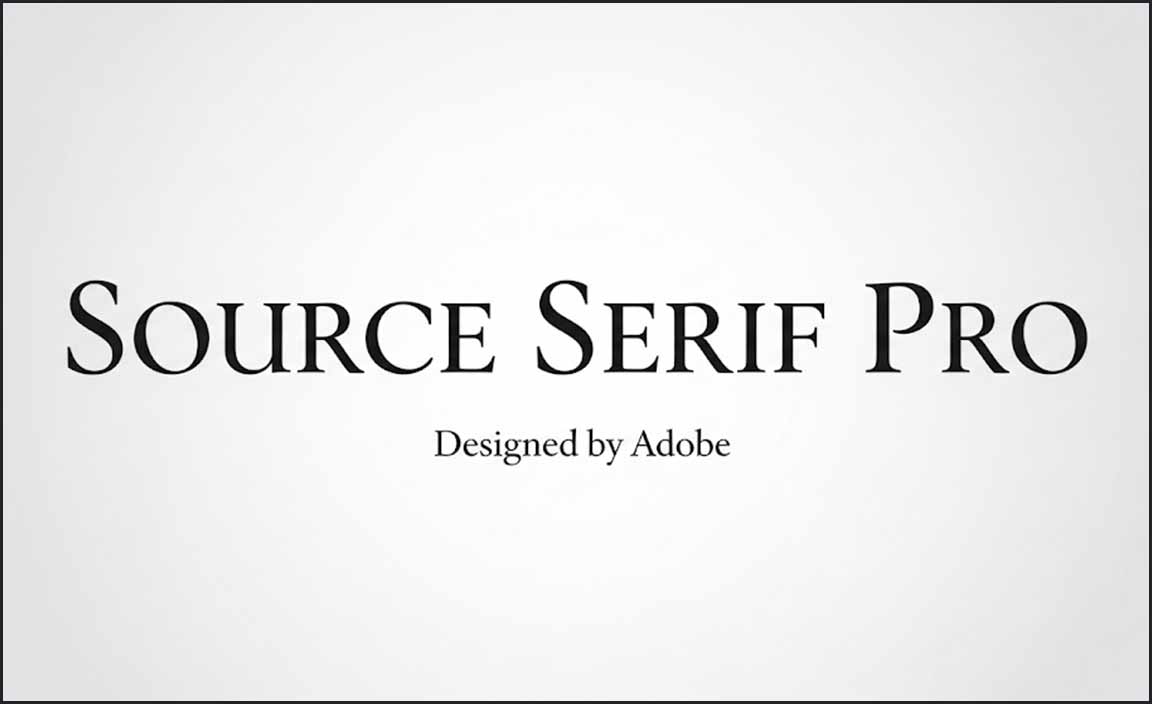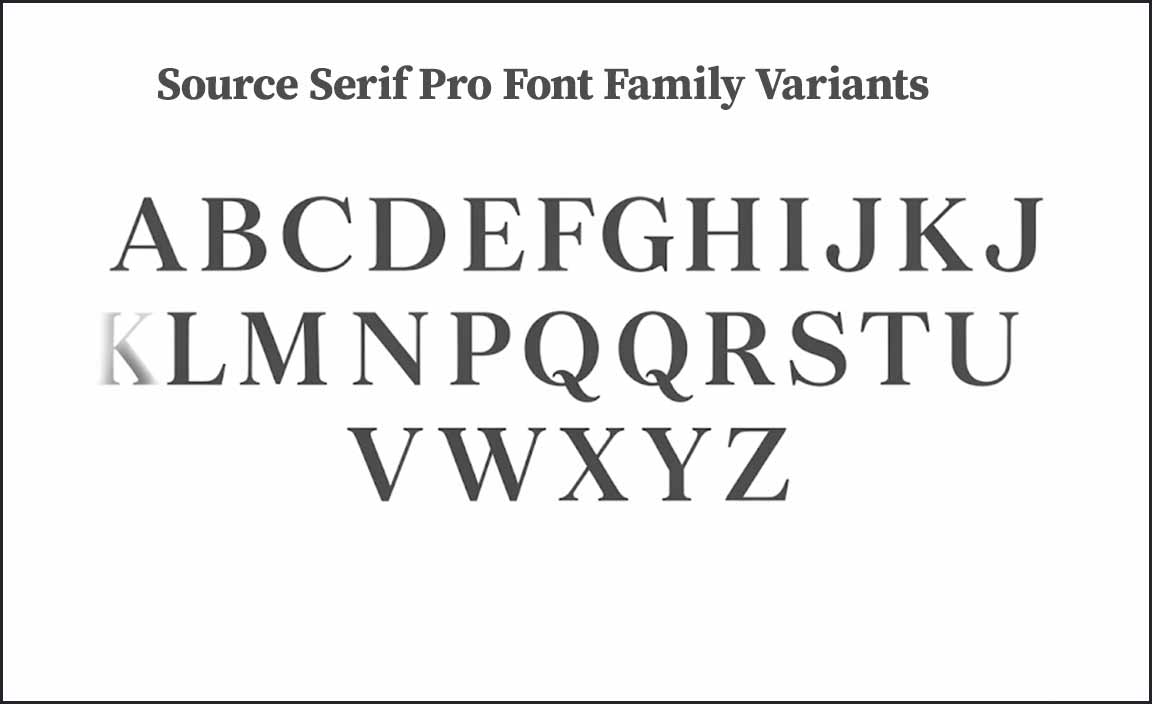
Adobe designed Source Serif Pro as a serif typeface that blends tradition with modern design. This versatile font family suits various design projects. It works well for websites, printed materials, and more. Its well-crafted letter proportions enhance readability. Source Serif Pro ensures typography stays stylish and clear.
Source Serif Pro Font Family Variants
Source Serif Pro offers a broad selection of variants, providing flexibility and balance in design projects. Below are the key weights in the family:
- Source Serif Pro Regular
- Source Serif Pro Light
- Source Serif Pro ExtraLight
- Source Serif Pro Semibold
- Source Serif Pro Bold
- Source Serif Pro Black
These variants make it possible to create a hierarchy of text in your design, from softer, lighter fonts for body copy to bold and striking fonts for headings and emphasis.
Why Choose Source Serif Pro For Your Design?
Source Serif Pro is a serif typeface, meaning it includes the small lines or extensions at the ends of characters, known as serifs. These features help guide the reader’s eye, enhancing the readability of text, especially over long periods. The font is perfect for designs that require clean, professional, and elegant typography. Here’s why it’s a great fit for your projects:
- Readability and Legibility
The proportions of Source Serif Pro’s letterforms have been carefully designed to ensure readability on both print and digital platforms. - Versatility Across Media
Whether in editorial layouts, websites, or branding, this typeface works across various media, offering a clean and professional look. - Balance with Source Sans Pro
Source Serif Pro pairs beautifully with Source Sans Pro. These two fonts were designed to complement each other, providing a seamless visual experience when used together.
How Source Serif Pro Works In Design Projects
Here’s how Source Serif Pro fits into different design types:
| Design Type | Best Use for Source Serif Pro |
| Web Design | Use Source Serif Pro Regular for body text and Source Serif Pro Bold for headings. Its high legibility ensures it works well on screens. |
| Branding & Logos | Source Serif Pro’s sophisticated yet modern design makes it perfect for logos and branding materials that require a touch of elegance. |
| Print Media | Ideal for editorial layouts, books, magazines, and packaging. Its multiple weights provide flexibility for different text sizes. |
| User Interfaces | Combine Source Serif Pro with Source Sans Pro for a consistent and harmonious design in UI projects, ensuring ease of reading. |
How To Incorporate Source Serif Pro In Your Design
- Headlines & Titles
Source Serif Pro Bold and Black are great for impactful headlines or title text. The heavy weight grabs attention, while the letter spacing adds clarity. - Body Text
For the body text of articles or long-form content, Source Serif Pro Regular and Light offer excellent legibility while keeping the design professional and neat. - Specialty Usage
Source Serif Pro ExtraLight can be used for minimalistic designs, such as elegant quotes, captions, or smaller details where a refined touch is needed.
Using Source Serif Pro For Logos And Branding
Source Serif Pro also shines in logo design. Its elegant, yet modern appearance ensures that logos look timeless, while the various weights allow for flexibility in design. Whether you’re looking for something sleek and professional or bold and attention-grabbing, Source Serif Pro has the versatility to match.
5.What Makes Source Serif Pro Different From Source Sans Pro?
Source Serif Pro is a serif typeface with classical influences, while Source Sans Pro is a complementary sans-serif font, both designed to work together.